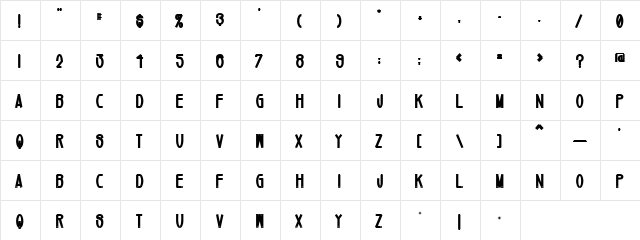
Mikey Jax Regular Font Preview
Mikey Jax Regular
Design Context for Mikey Jax Typeface
Mikey Jax is a composed and adaptable typeface that performs quietly and consistently across a wide range of design contexts.